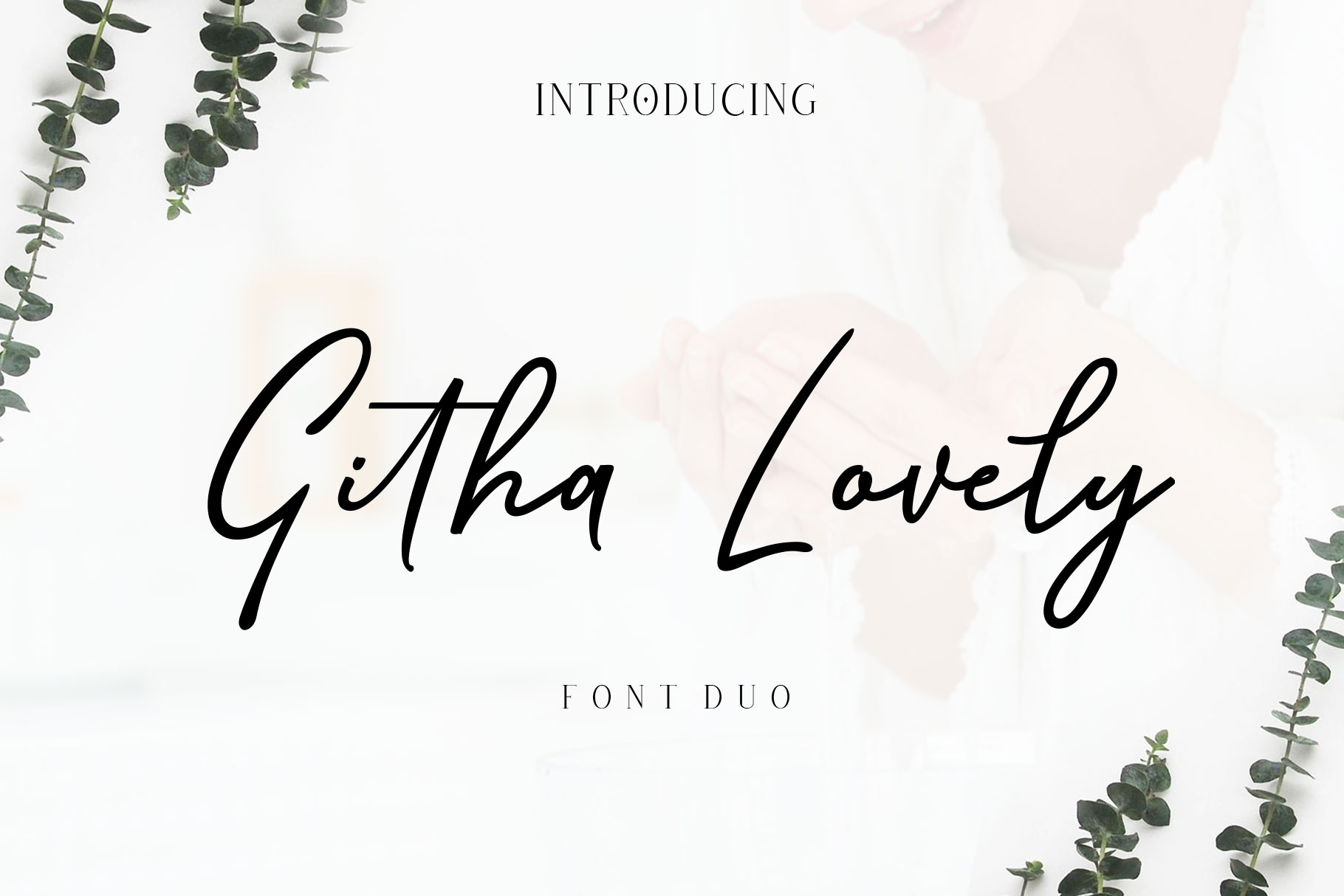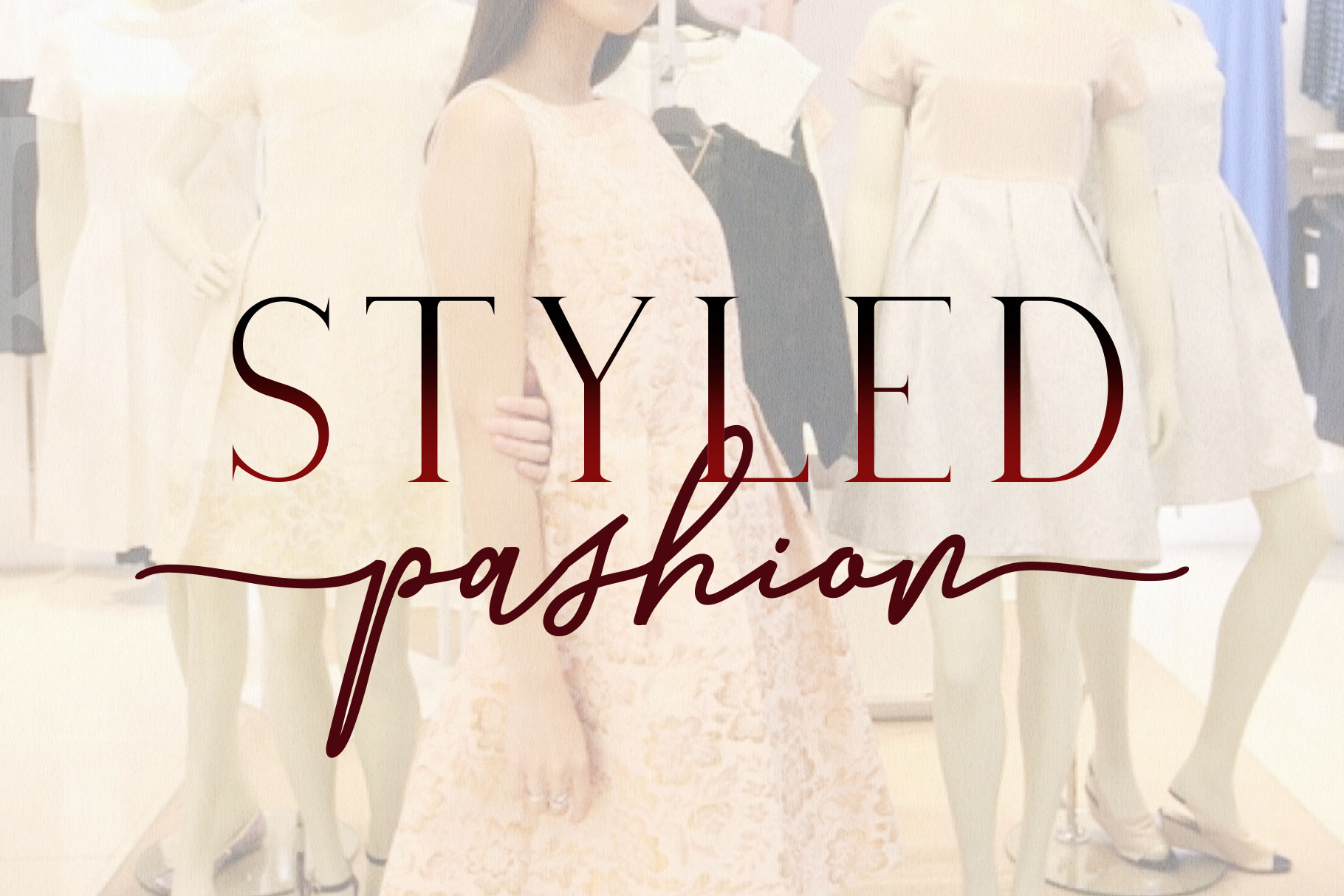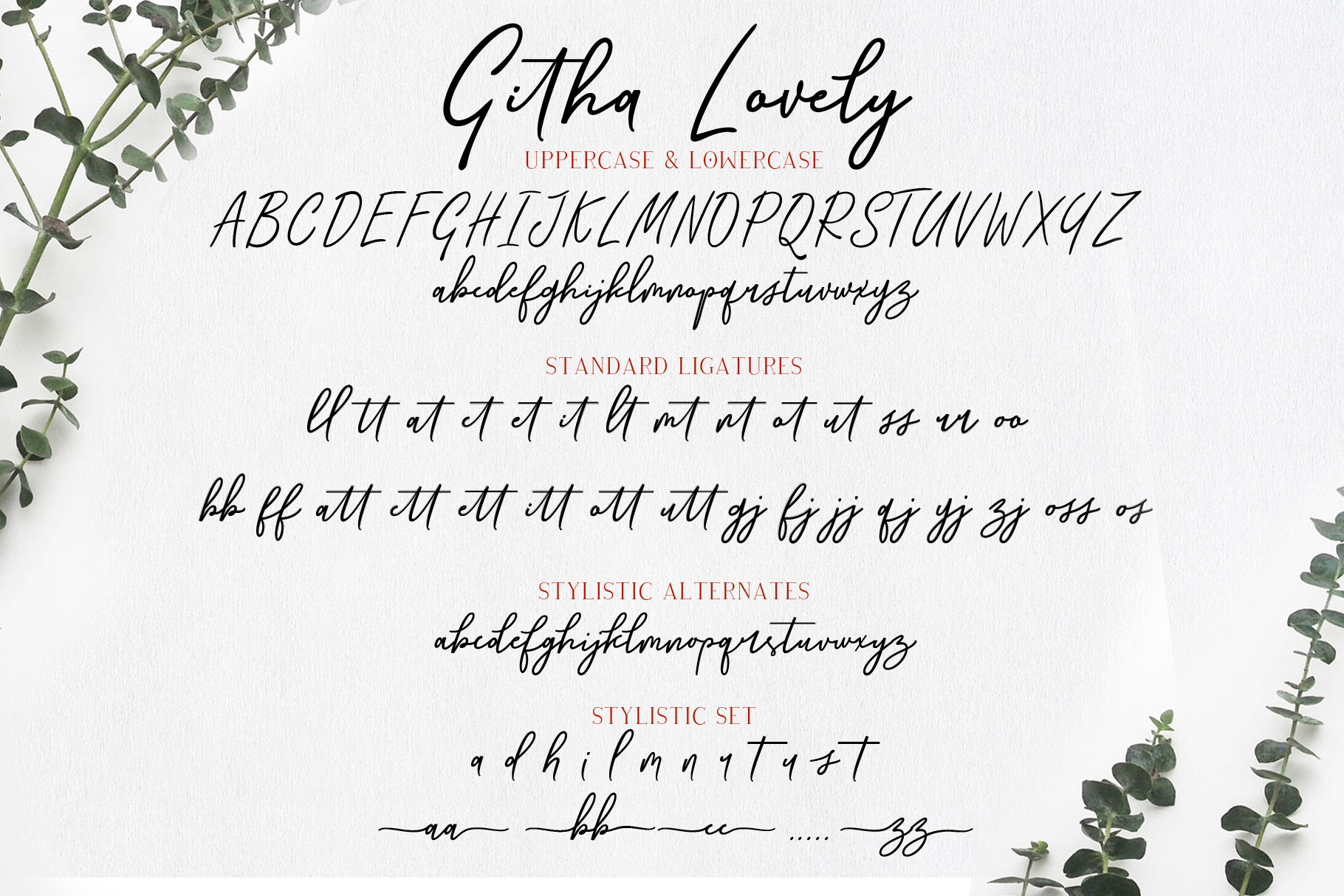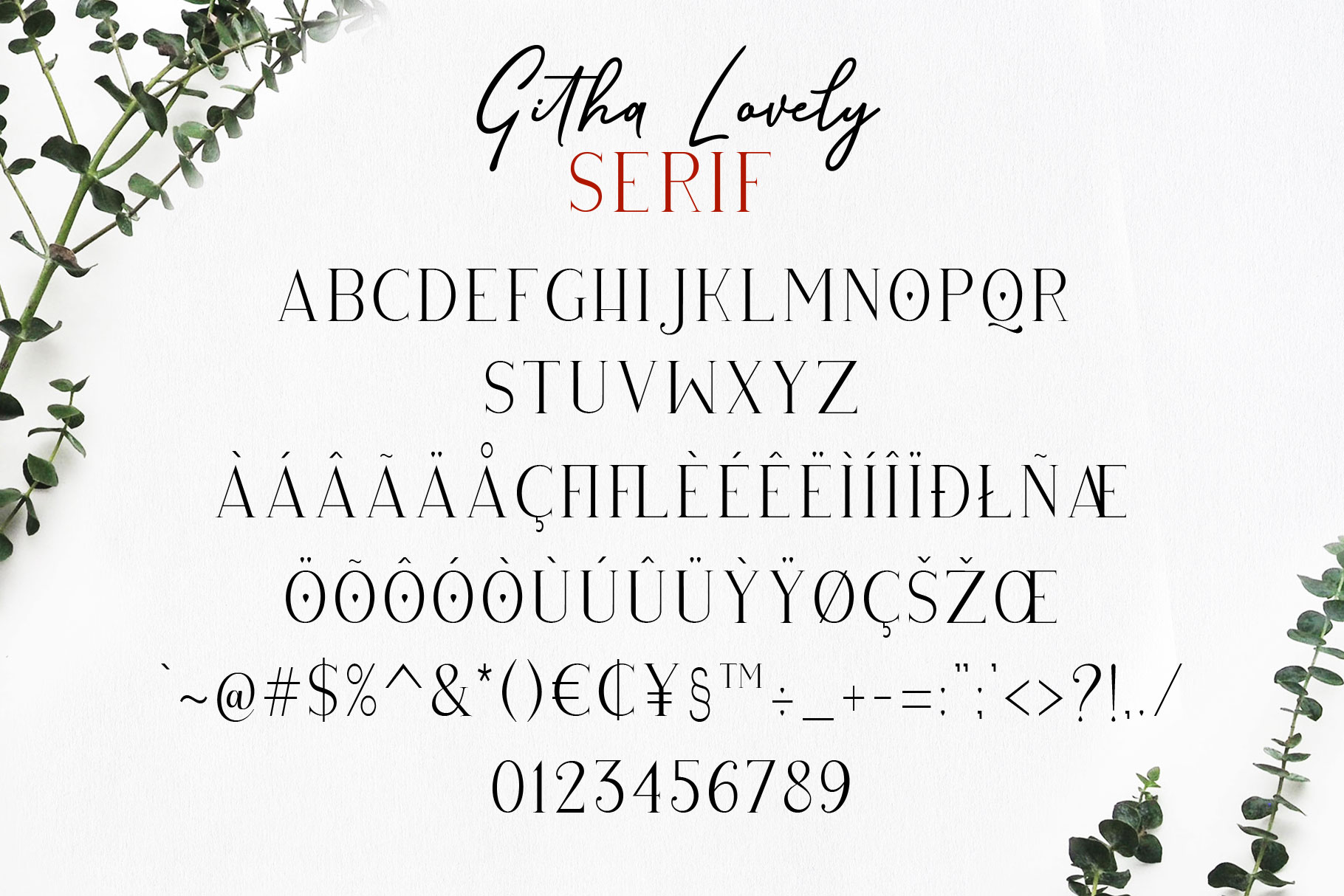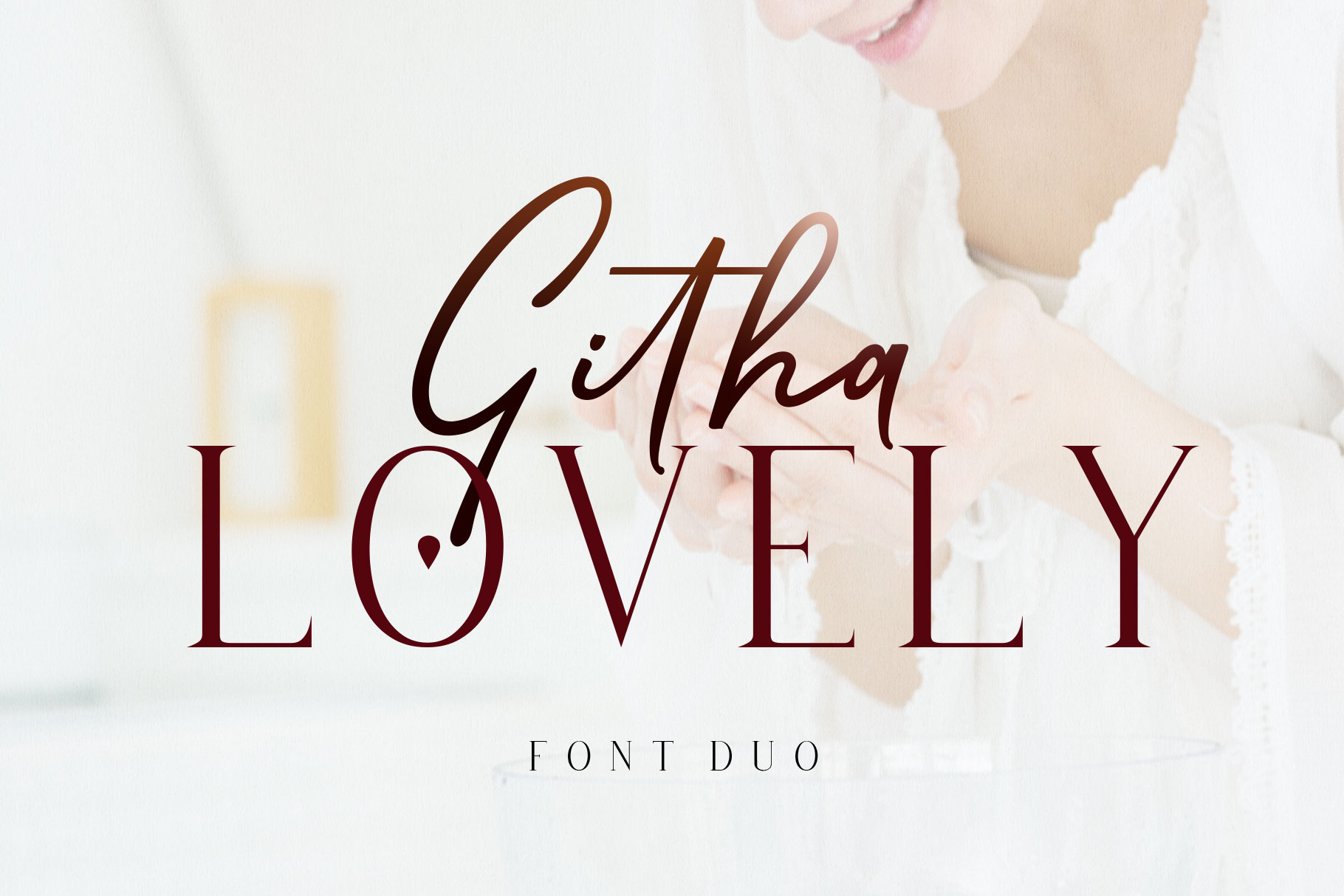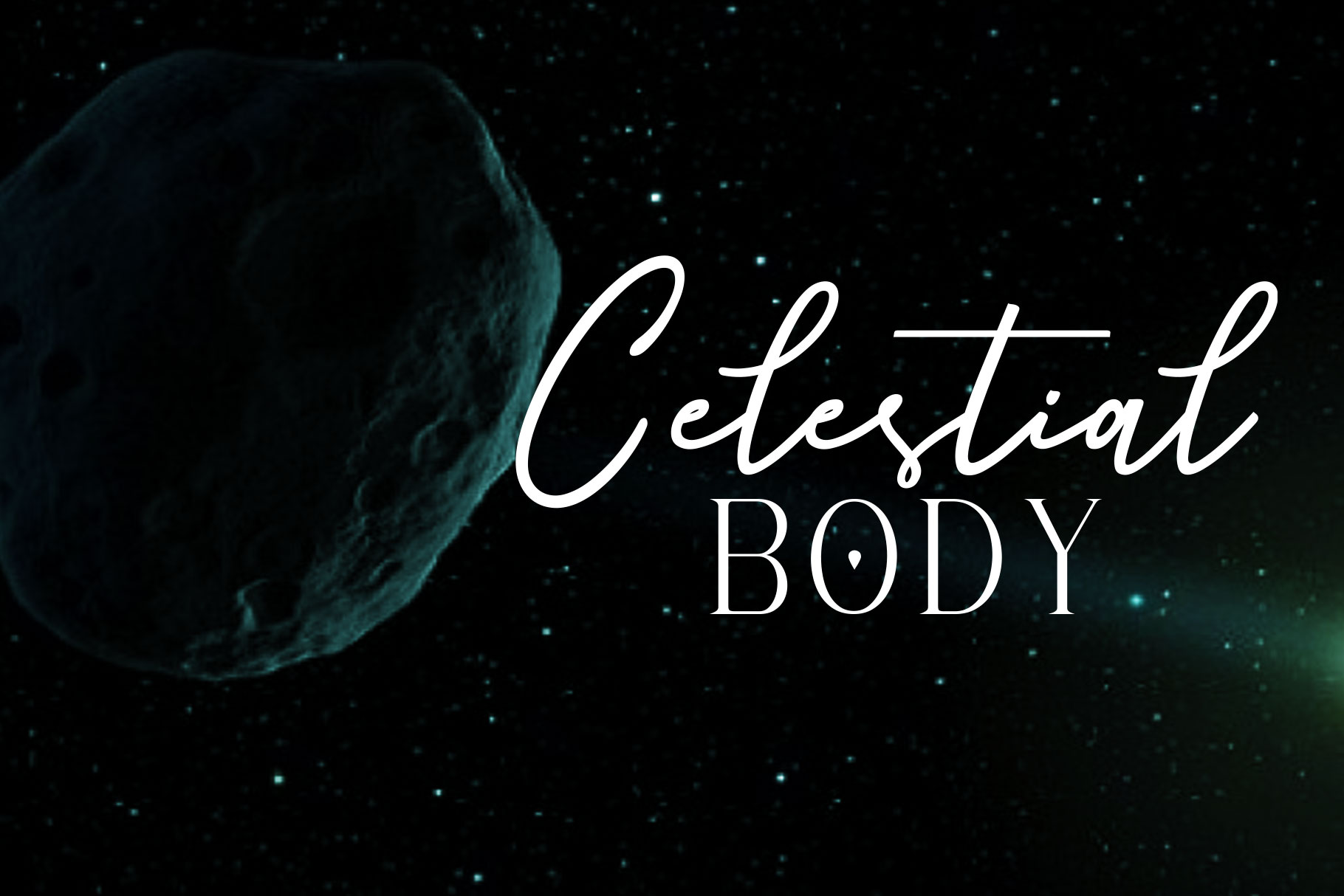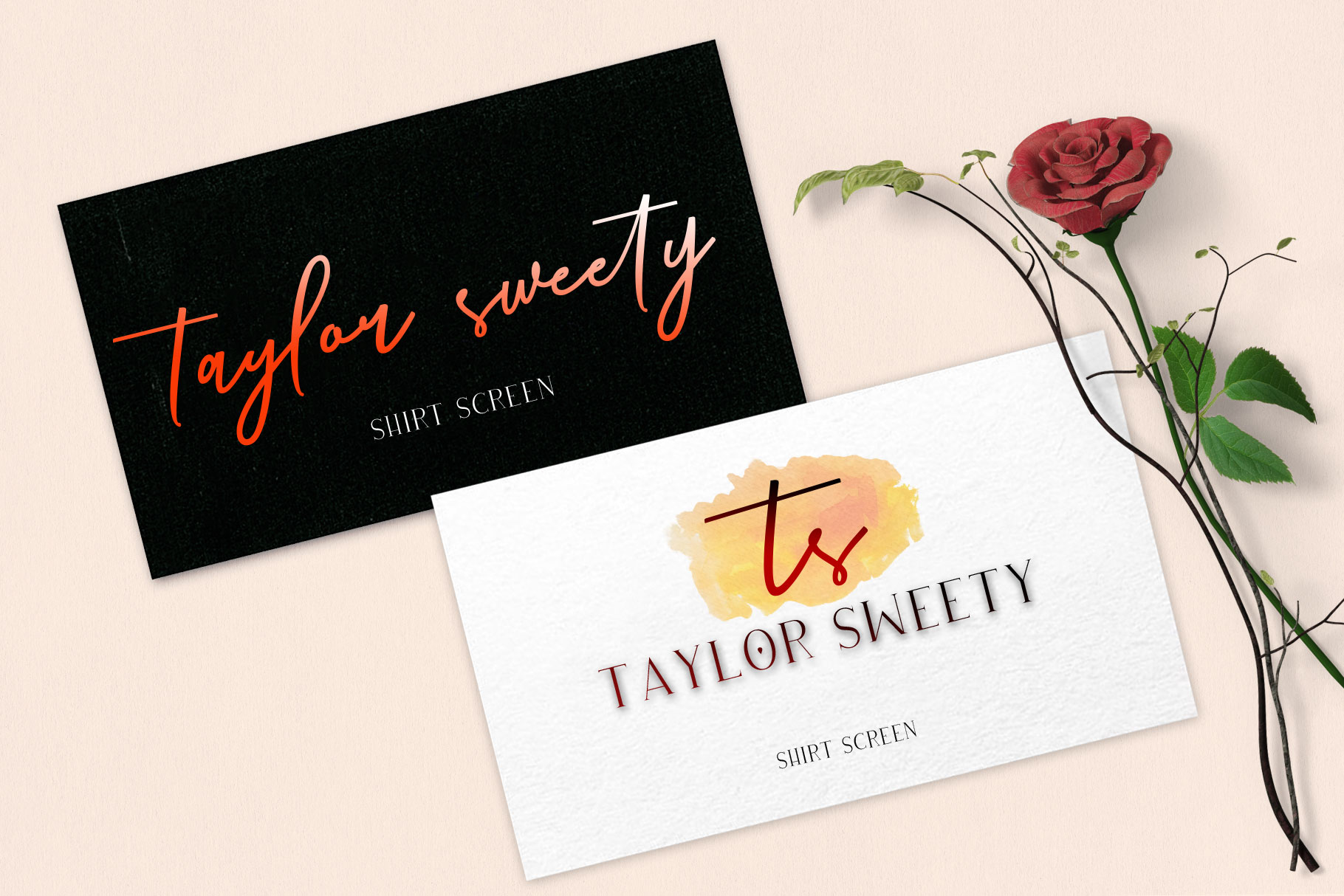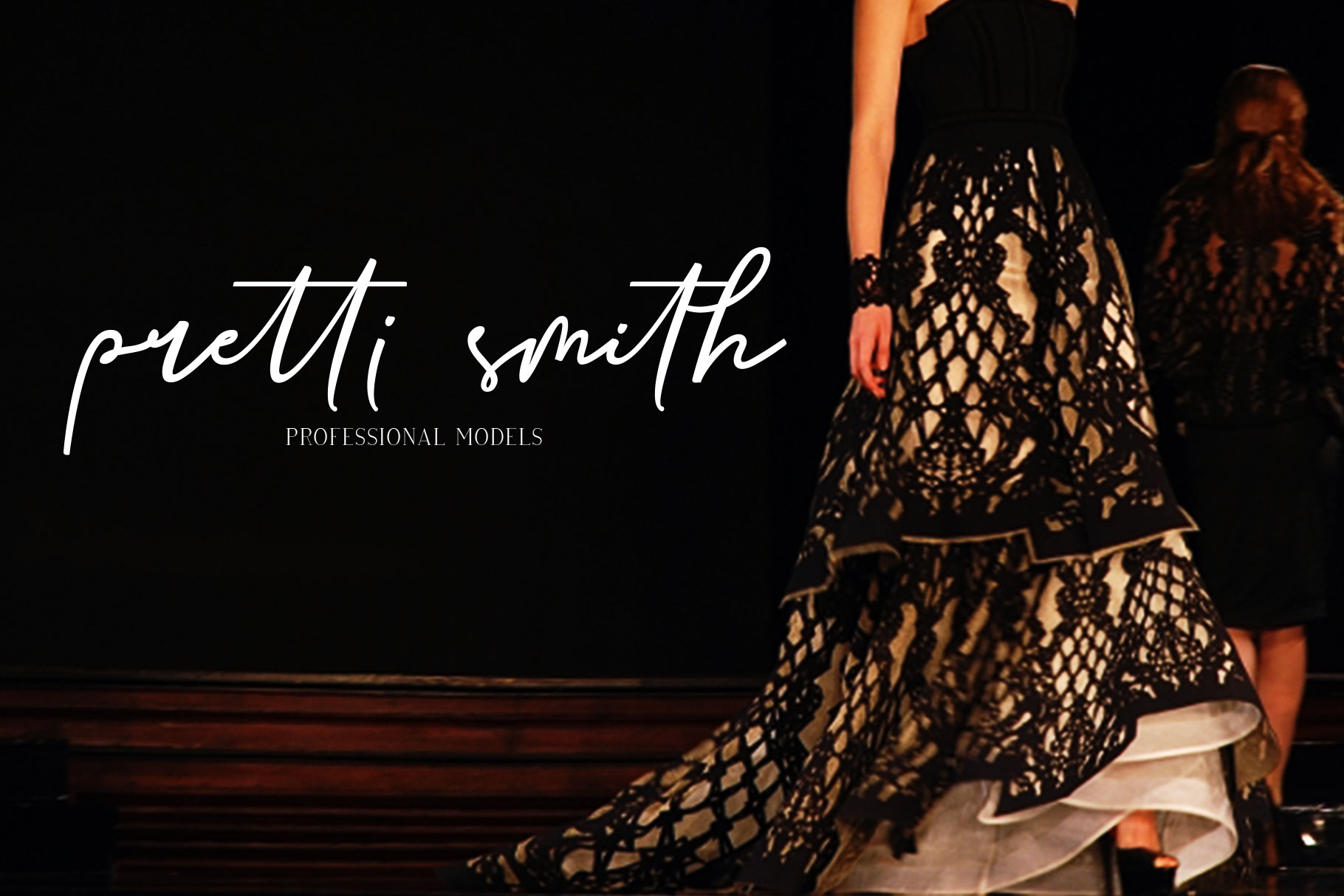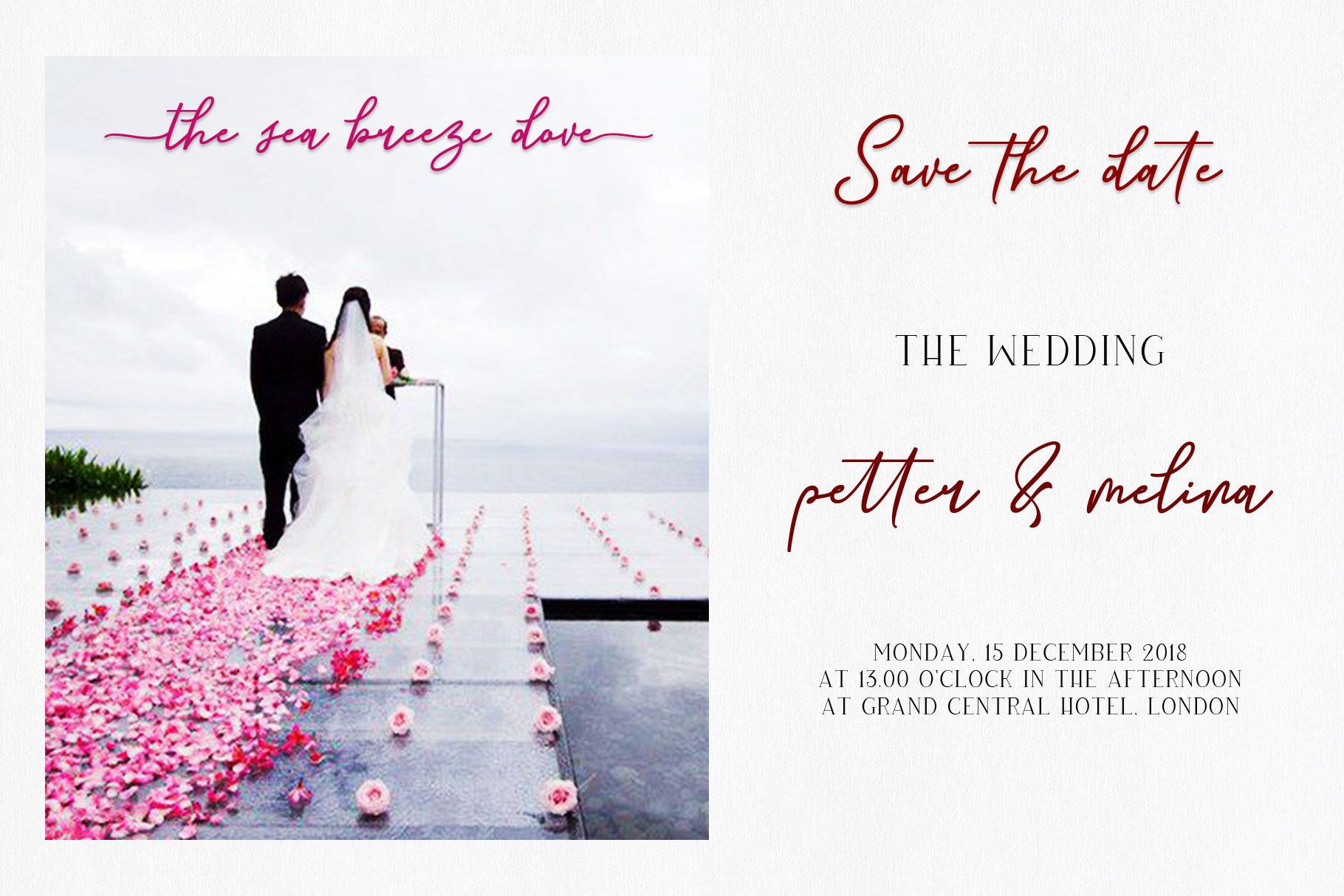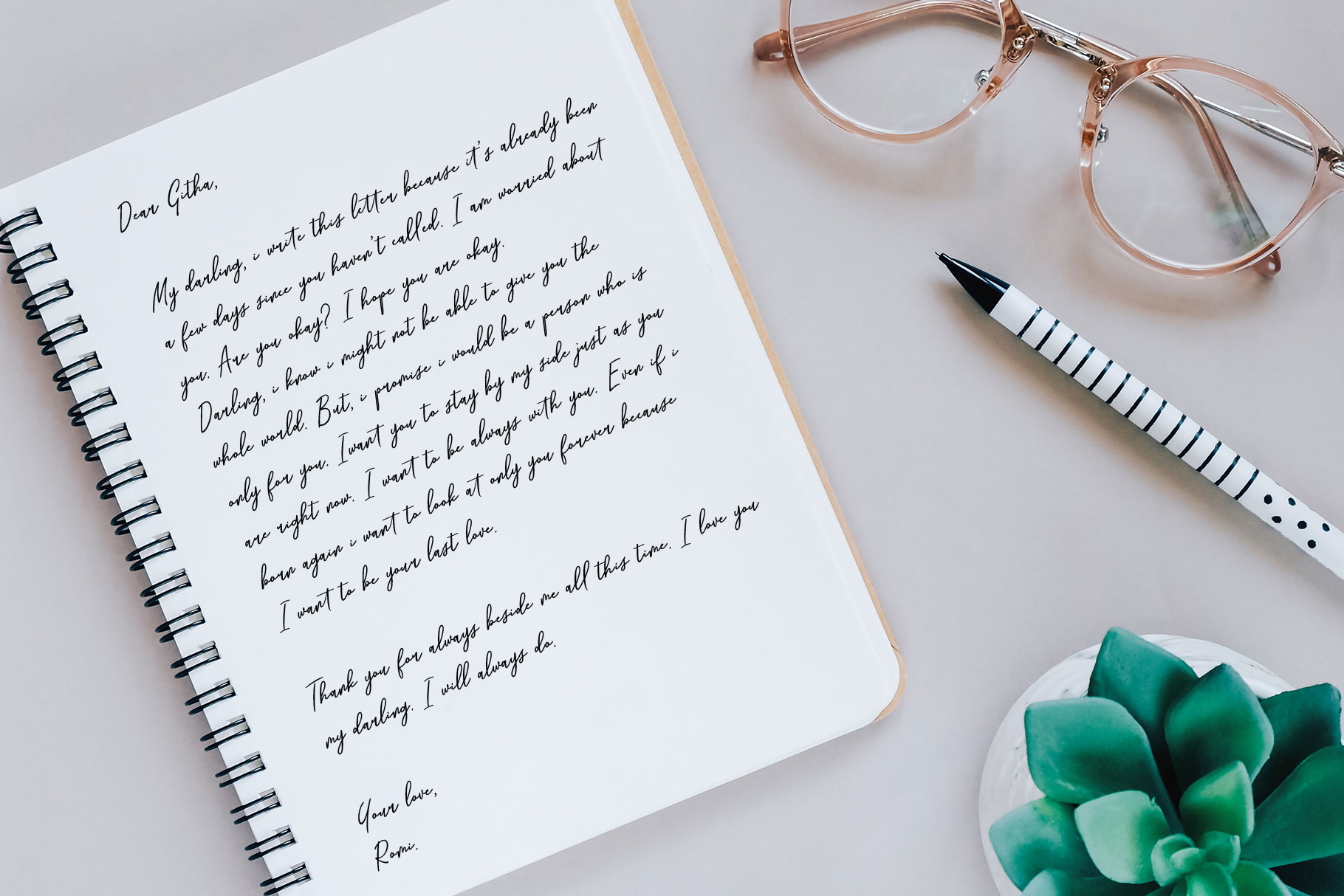
Githa Lovely Font
About Githa Lovely Font
Githa Lovely is a gorgeously modern font duo, ideal for use in projects that necessitate equal measures of harmony and elegance. This duo is ideal for use in invitationals and in highly editorial pieces of work.